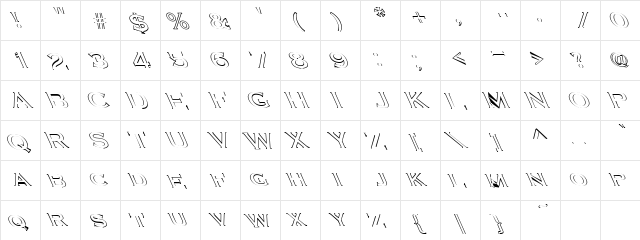
Disasters 1 Regular
Design Context for Disasters 1 Typeface
Disasters 1 is a composed and adaptable typeface that performs quietly and consistently across a wide range of design contexts.